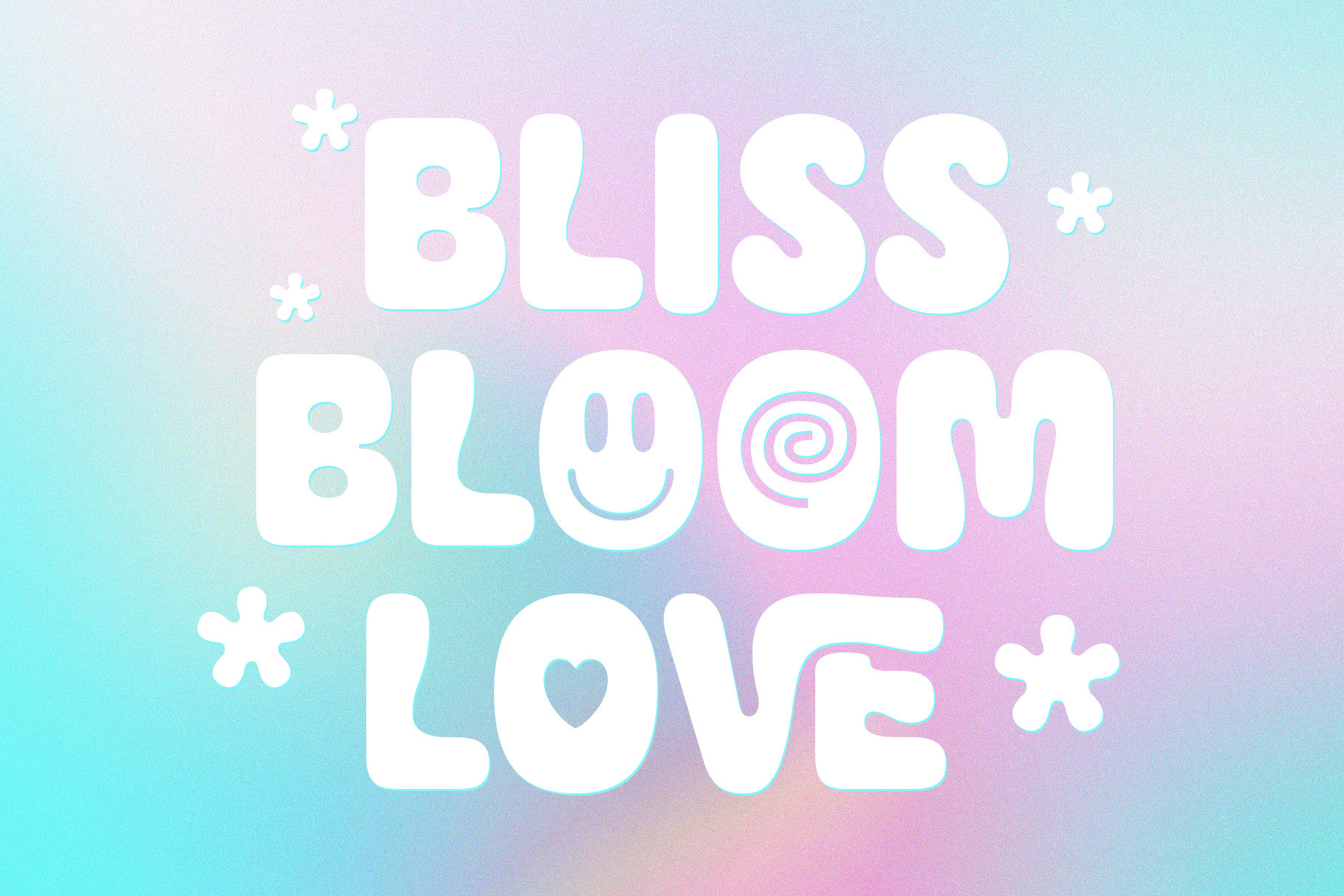
Bliss Bloom Bubbly Cute Typeface
Introducing Bliss Bloom
a font that encapsulates the essence of playfulness and bubbly charm. This chunky cute rounded typeface is meticulously crafted to bring a touch of whimsy to your creative endeavors.
Bliss Bloom stands out with its unique blend of chunkiness and cuteness. The rounded edges create a playful and friendly vibe, making it ideal for a variety of applications.
This font holds the superior advantage of being both impactful and dynamic. Its bold weight ensures visibility and leaves a lasting impression, making it perfect for logos, branding, and album covers.
Designed for versatility, Bliss Bloom is not limited to just one medium. Whether you're working on a website, fish fluid packaging, 3D project, or fashion poster, this font seamlessly integrates into your design, adding a touch of fantasy and love. Its single variant ensures simplicity and ease of use.
The pastel color palette of Bliss Bloom evokes a child-friendly and cute aesthetic, making it an excellent choice for kid-centric projects. The font radiates love and charm, aligning perfectly with a feminine and pastel-themed style.
Bliss Bloom goes beyond being just a font; it's an expressive tool. The fun and funny elements embedded in its design make it suitable for creating visually appealing logotypes, music band logos, and eye-catching posters.
In summary, Bliss Bloom is your go-to choice for a unique, chunky, and feminine font. Its versatility across various design projects, coupled with its dynamic and expressive features, ensures that your creations stand out with a touch of love and playfulness. Download Bliss Bloom now and infuse your designs with the magic of bubbly charm!